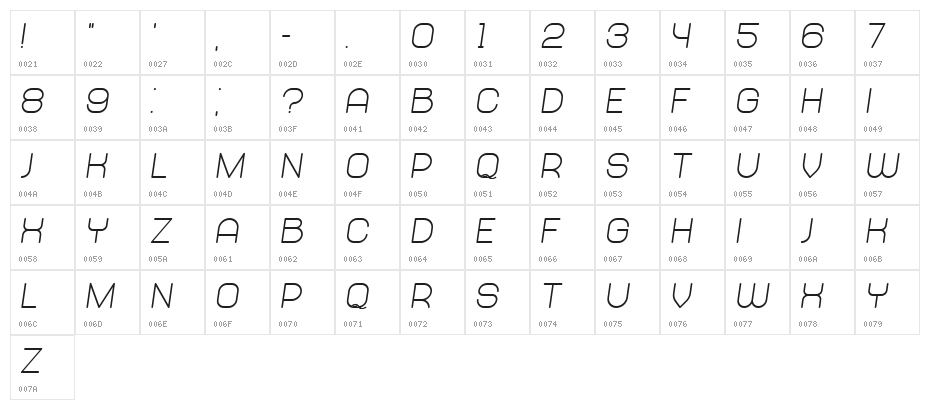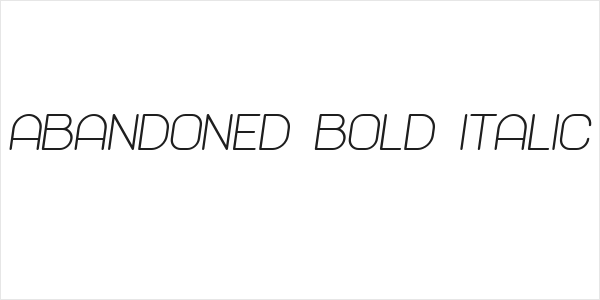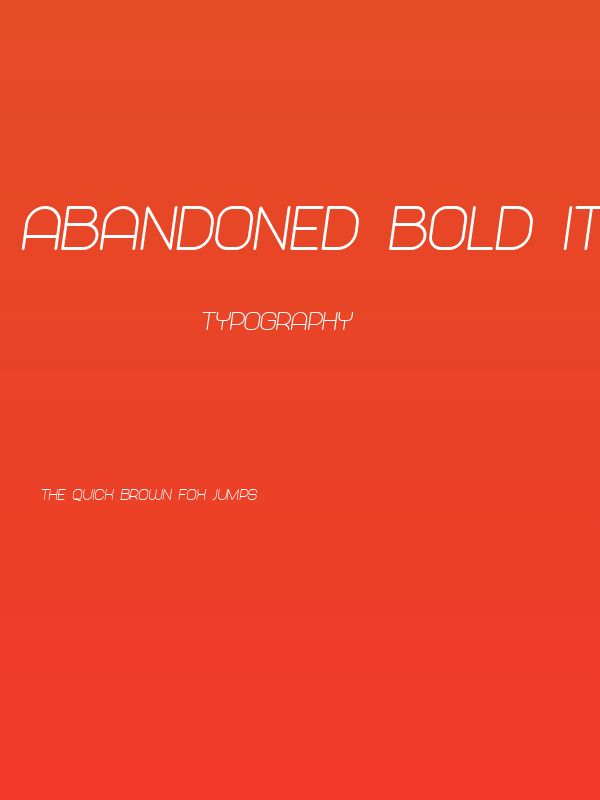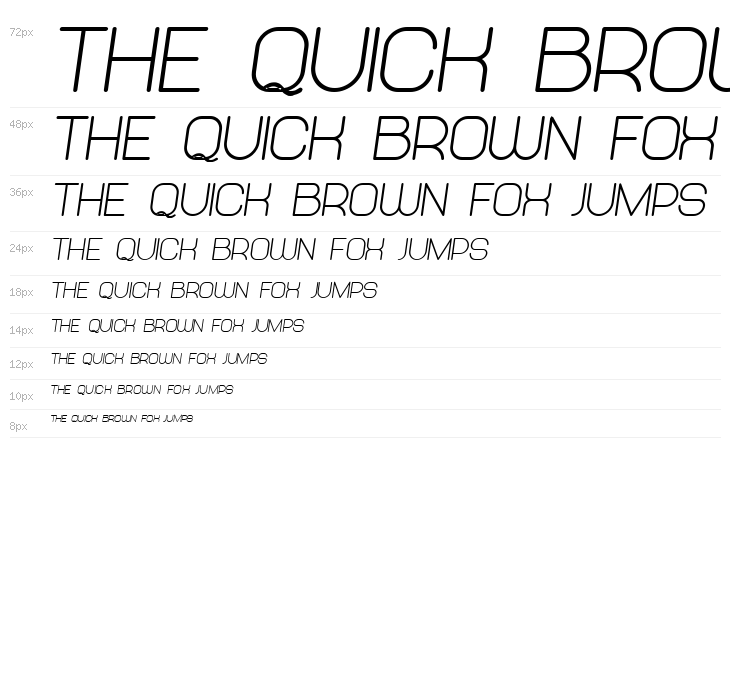
Abandoned Bold Italic Font
Abandoned Bold Italic Description
This font features a sleek, modern design with a distinct italic slant, giving it a dynamic and forward-moving appearance. The characters are crafted with a consistent stroke width, contributing to a clean and uniform look. The rounded edges and open counters enhance readability while maintaining a contemporary aesthetic. The uppercase and lowercase letters are well-proportioned, and the numerals align seamlessly with the overall style. Special characters are included, complementing the font's versatility. This typeface is ideal for projects that require a modern and stylish touch.
| Proposed Projects | Ideal for branding, advertising, modern web design, and editorial layouts. |